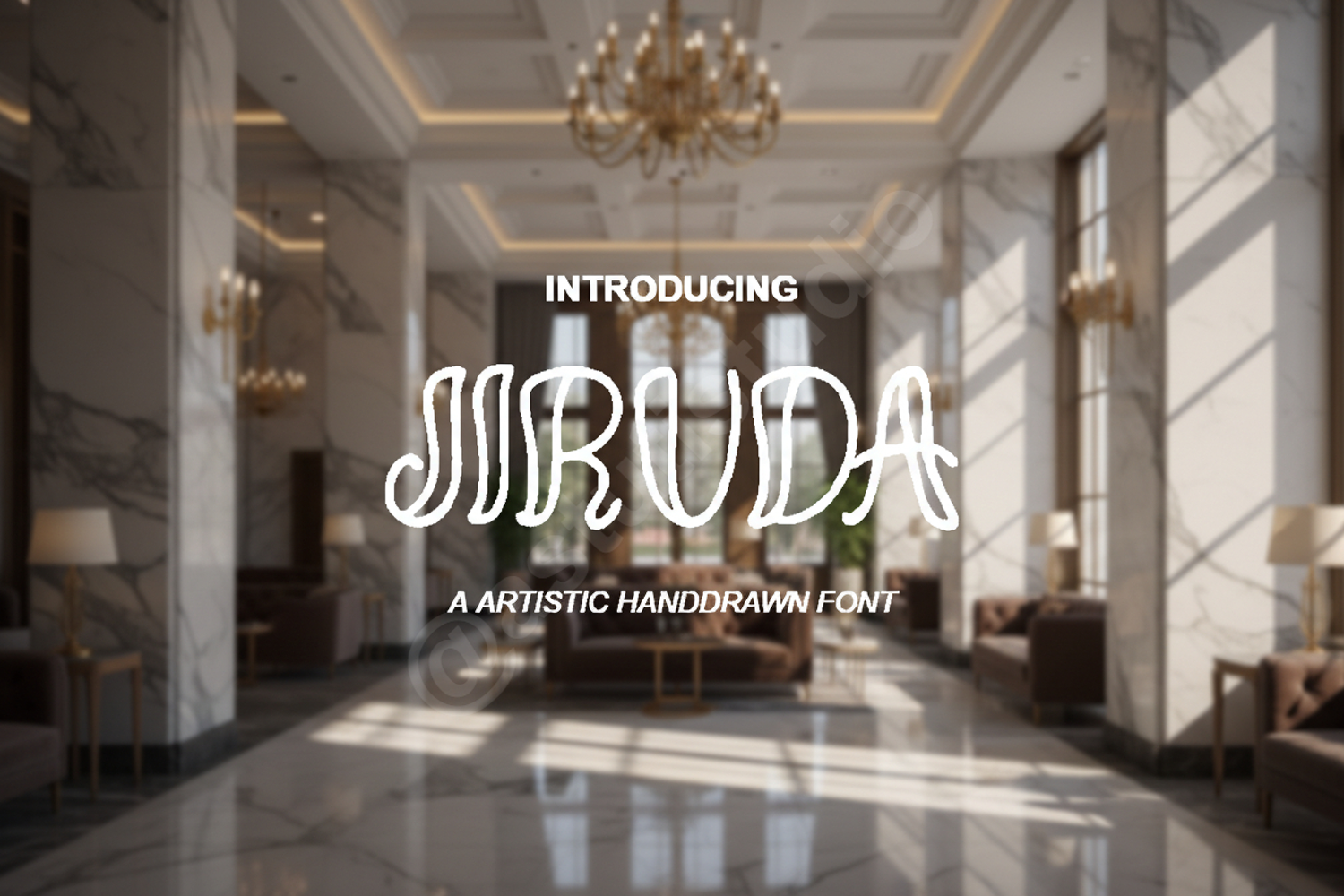
Jiruda - Modern Sophisticated Serif Typeface
Jiruda
Introducing Jiruda, a premium serif typeface designed for elegance and versatility. With its clean lines and sophisticated proportions, Jiruda brings a touch of luxury to any design project. Whether you are crafting a high-end brand identity or a minimalist editorial layout, this font provides the perfect balance of classic charm and contemporary flair.
- Full set of Uppercase and Lowercase characters
- Numbers and Punctuation
- Standard Ligatures
- High-end Branding and Identity
- Wedding Invitations and Stationery
- Editorial Design and Magazine Layouts
- Logo Design and Typography-based Art
- Social Media Graphics and Web Headers